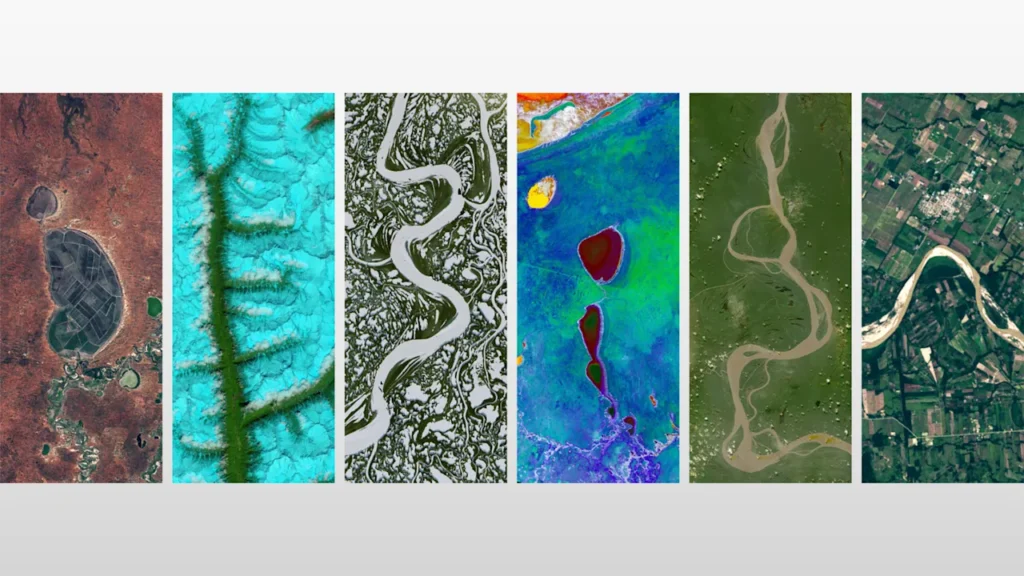
NASA is looking not to the stars but back to our planet for inspiration.
In honor of Earth Day, NASA’s Kennedy Space Center shared an interactive digital tool turns satellite images of the planet’s landscapes into a typeface.
“The planet can spell your name—literally,” the Kennedy Space Center’s X post says.
Using a feature called “Your Name in Landsat,” users can type in whichever word they choose into the generator’s textbox. The site will then generate the phrase using landscapes from Earth, like rivers, lakes, farmland, and more. When hovering over each “letter,” users can learn more about where the landscape is located and even its coordinates.
NASA first unveiled the tool in August of 2024 for Camp Landsat, a virtual summer camp the agency runs. The letters are part of an extensive record of satellite images from Landsat—the longest ongoing series of Earth observing missions—which spans more than 50 years. The Landsat mission was first launched on July 23, 1972 and has since successfully launched eight satellites that have photographed the planet.
The project has not only awarded earthlings with high-resolution imagery for fun visualizations like “Your Name in Landsat”; it has also provided valuable data for scientists and policy makers alike to make decisions regarding the environment and natural resources.
The images that feed into the word generator are part of the satellite program’s Alphabet Image Gallery, with images sourced from the NASA Earth Observatory, NASA Worldview, USGS EarthExplorer, and the ESA Sentinel Hub.
Some letters get more than one iteration depending on how complex and prevalent the shape is in nature.
Take the “A” which has five different options, with landscapes ranging from Yukon Delta, in Alaska, to Lake Guakhmaz, in Azerbaijan.
The “G” in comparison, is somewhat rarer, with only one option currently available in the gallery: an image from Fonte Boa, a municipality in the Amazonas state of Brazil.
People love the tool. The social media post received over 22 million views and more than 1,300 people posted their creations in the comments. (Even brands like Xbox got in on the fun.)
Beyond serving as a delightful interactive feature, Your Name in Landsat is also a powerful visualization that reminds us of how vast the world is and why its natural landscapes are worth saving.